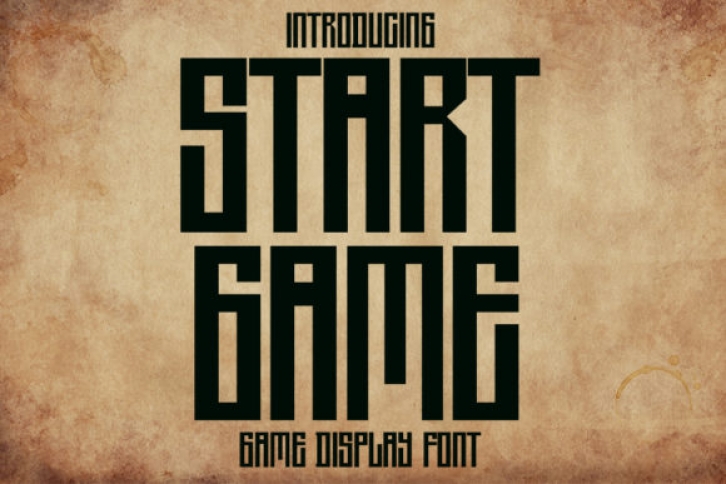
Start Game is a classic display font. This font will look outstanding in any context, whether it’s being used on busy backgrounds or as a standalone headline!